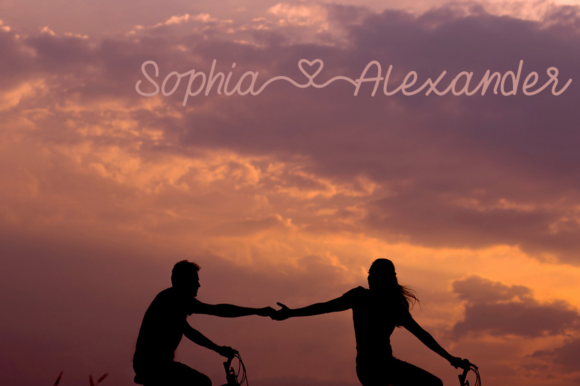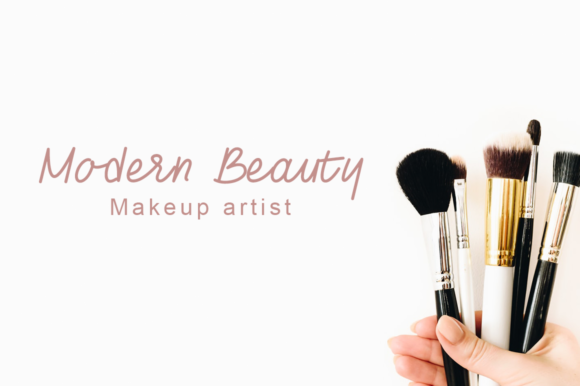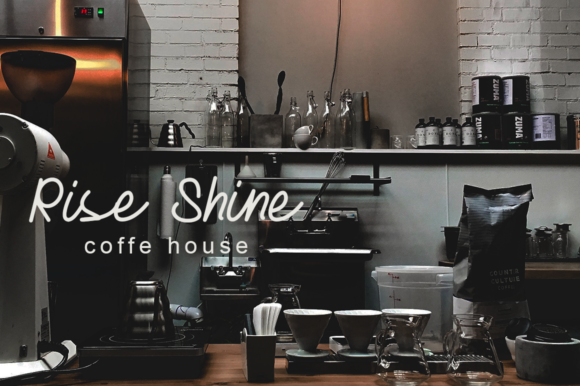
Introduction to Hyomenha Font
As a designer, there’s nothing quite like the rush of inspiration that comes when you stumble upon the perfect font for your creative project. For me, it was the Hyomenha Font that brought it all together – its delicate, elegant curves and flowing lines seemed to transport me to a world of beauty and sophistication. And as I delved deeper into the font, I realized just how versatile it was, pairing seamlessly with a wide range of designs to create something truly special.
What I love most about the Hyomenha Font is its ability to elevate any design to the next level. With its high-quality characters and well-balanced composition, it’s the perfect resource for designers looking to add a touch of sophistication to their work. And with its transparent background, you can easily customize it to fit your needs. Plus, it’s available for free download, making it an invaluable addition to any design toolkit.
Key Features of Hyomenha Font
- Unique, hand-drawn design ideal for creative projects and artistic expressions.
- High-quality design with precise details and smooth lines, making it suitable for print and digital applications.
- Perfect for use in creative projects, such as logos, branding materials, and graphic designs, requiring a unique and artistic touch.
Honest Review: Hyomenha Font
I recently stumbled upon the Hyomenha Font while searching for a free design resource for a creative project. I was impressed with its unique aesthetic and decided to give it a try.
- High-quality typography: The Hyomenha Font has a clean and modern look that makes it perfect for a variety of design applications.
- Transparent background: This feature allows for seamless integration with any background image or color, giving designers more creative freedom.
- Limited font styles: The Hyomenha Font only comes in a few styles, which may limit its versatility in certain design projects.
- No bold or italic options: While the font’s unique look is appealing, it would be nice to have bold or italic options to add more depth to text.
Overall, I’m impressed with the Hyomenha Font’s design and features. While it has some limitations, its high-quality typography and transparent background make it a valuable resource for designers. I would recommend it for creative projects that require a modern and unique look.
The Hyomenha Font is suitable for various design projects, including logos, social media graphics, presentations, and documents. Its high-quality design and transparent background make it an excellent choice for creative projects that require precision and attention to detail.
To get the most out of the Hyomenha Font, experiment with different font sizes, colors, and combinations to create unique and visually appealing designs. You can also use the font in conjunction with other design elements to create a cohesive and professional-looking design.
Can I use the Hyomenha Font for web design?
Yes, the Hyomenha Font is perfect for web design. Since it has a transparent background, you can easily use it as a text overlay on images or videos, creating a stunning visual effect. Additionally, the font’s high-quality design ensures that it will look great on various screen sizes and devices.